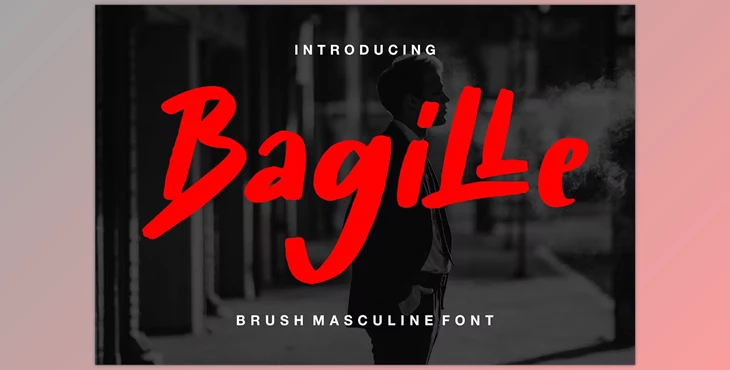
Bagille | Brush Masculine Font:
Introducing Bagille, a bold brush lettering font exuding a masculine calligraphic style. Perfect for enhancing invitations, greeting cards, branded materials, business cards, quotes, posters, and more!
- Extensive glyph set
- Alternate characters and ligatures
- Multilingual support for diverse language requirements